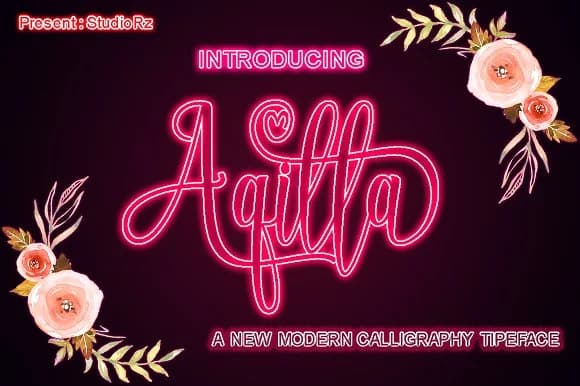
Aqilla by BungCu.id is a modern calligraphy script designed to infuse contemporary projects with elegant, flowing letterforms that feel both handcrafted and professionally refined. This typeface combines the organic expressiveness of traditional brush lettering with carefully balanced proportions, creating a visual style that works beautifully across diverse creative applications without compromising readability or functionality.
This script font shines across multiple use cases, from wedding invitation suites and personalized greeting card designs to Etsy product label packaging and upscale social media branding content. The smooth, connected strokes create a natural calligraphic flow that draws attention while remaining legible at various sizes and applications. Its modern sensibility works equally well for boutique beauty product packaging, feminine-forward lifestyle branding, custom stationery sets, and any project requiring sophisticated handwritten typography that balances artistic expression with professional presentation.
- Elegant, Flowing, Aqilla
Aqilla Font is a script font that shines as a display or heading face. Pair it with a clean sans-serif or serif font for body text β the contrast creates a clear hierarchy while the two styles stay balanced and easy to read.